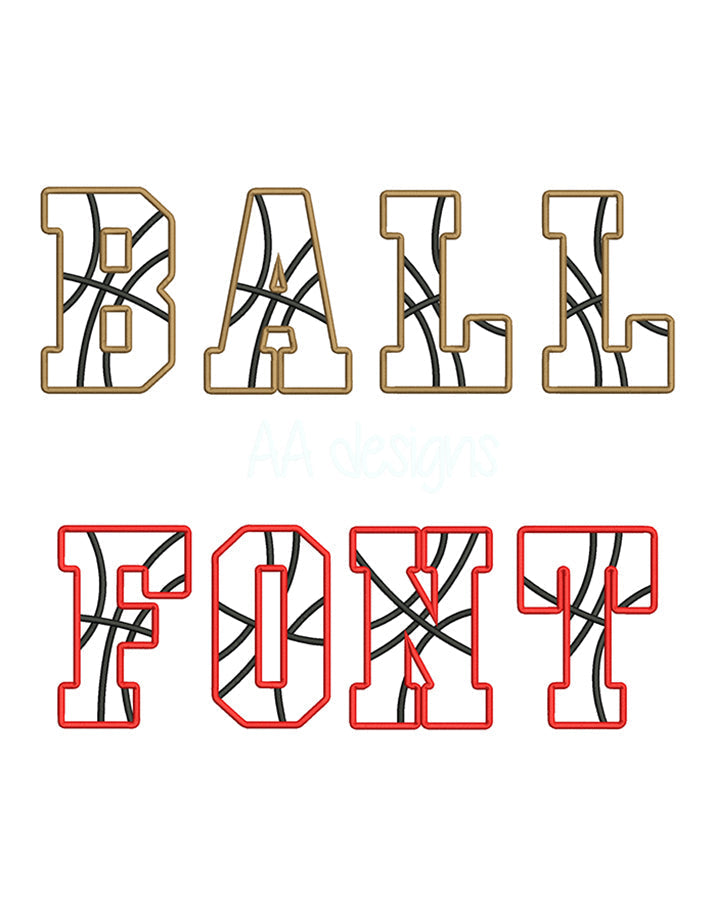
Why Applique Fonts Are Ideal for Sports & Team Uniforms
When personalizing sports uniforms, jerseys, and team gear, applique embroidery fonts deliver the bold, high-impact look that athletes and coaches want. The fabric-filled letters are durable, wash-resistant, and stand out on the field — making them the go-to choice for team names, player names, and numbers on sportswear.
Compared to flat embroidery, applique uses less thread (lower stitch count), which means faster production, softer results, and better durability on performance fabrics like polyester and mesh.
Benefits of Applique for Sports Uniforms
- 💪 Bold, high-visibility lettering — fabric fills are more vibrant than thread fills at large sizes
- ⚡ Faster to produce — lower stitch count means quicker turnaround for team orders
- 🧵 Durable & wash-resistant — holds up through repeated washing and heavy use
- 🎨 Team color matching — use any fabric color to match team colors exactly
- 👕 Works on performance fabrics — great on polyester, mesh, and moisture-wicking materials
Best Sports Applique Fonts from Embroidery Sky
Basketball Applique Font
Strong, athletic letterforms built for the court. Perfect for personalizing basketball jerseys, shorts, bags, and team hoodies with player names and numbers. The bold strokes stitch cleanly on mesh and polyester fabrics.
Volleyball Applique Font
Dynamic, sporty letters designed for volleyball uniforms and team gear. Works great on spandex, polyester, and nylon — ideal for personalizing jerseys, bags, and warm-up jackets.
Tennis Applique Font
Clean, precise letterforms for tennis apparel and accessories. Perfect for personalizing racket bags, polo shirts, and team uniforms with a professional, polished look.
Wild Applique Font
Bold and energetic — great for youth sports teams, recreational leagues, and casual team gear that needs a fun, powerful look.